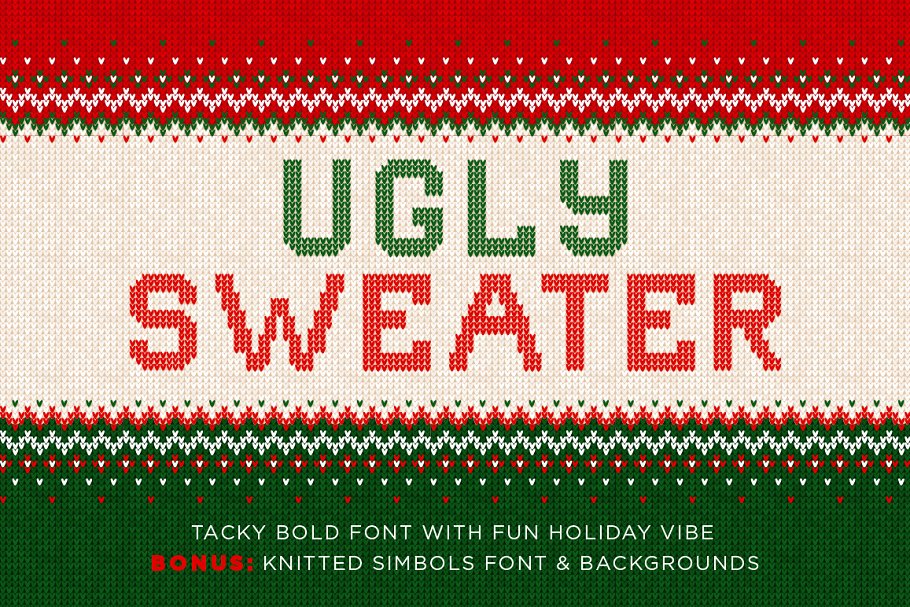
Introducing UGLY SWEATER Font - the ultimate solution to all your holiday font needs! Created by Svetlana Vasilkovskaya, this tacky bold font is perfect for creating fun and festive designs that are sure to capture the attention of your audience.
With its easy-to-use interface, UGLY SWEATER Font is an excellent choice for all skill levels. You won't need any special software to create stunning designs that are sure to impress. It comes with all the standard features you'd expect from a high-quality font, including a complete character set, lowercase symbols, numerals, and punctuation.
But that's not all - UGLY SWEATER Font comes with a range of bonus content, including ten seamless knitted backgrounds, a set of knitted symbols, all letters and numerals, two Christmas card backgrounds with ornaments, and a prepared Christmas knitted background like the one on the cover. With all of this bonus content, you'll have everything you need to create stunning designs that are sure to impress.